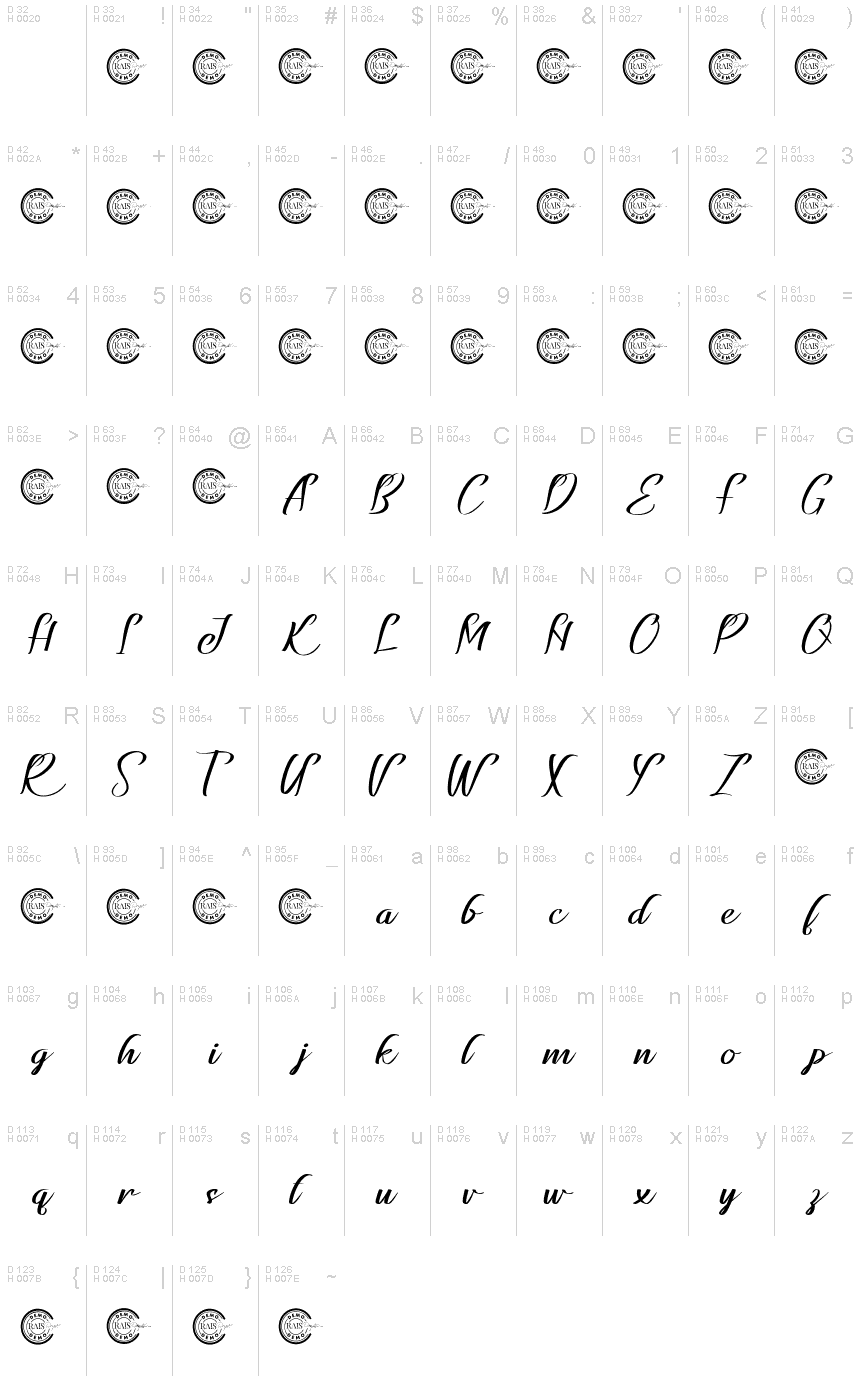
Charlie Kayden Demo
The Charlie Kayden font by RaisProject is a stunning semi-light calligraphy typeface that is perfect for projects requiring elegance and sophistication. The script-like strokes of this font add a touch of glamour to wedding invitations, luxurious product packaging, and high-end branding materials. Its smooth curves and flowing lines make it an excellent choice for romantic projects like love letters or poetry books. Additionally, the semi-light weight makes it ideal for use in body text on websites or printed materials that require legibility without sacrificing style. Upgrade your designs with the beautiful Charlie Kayden font today!